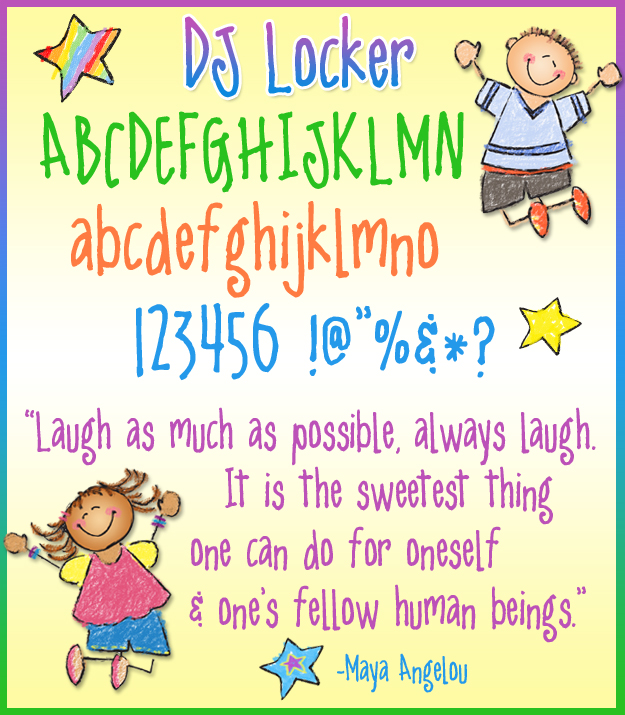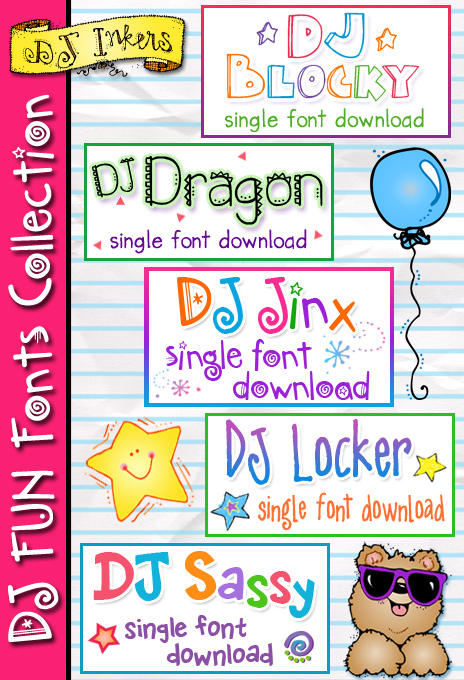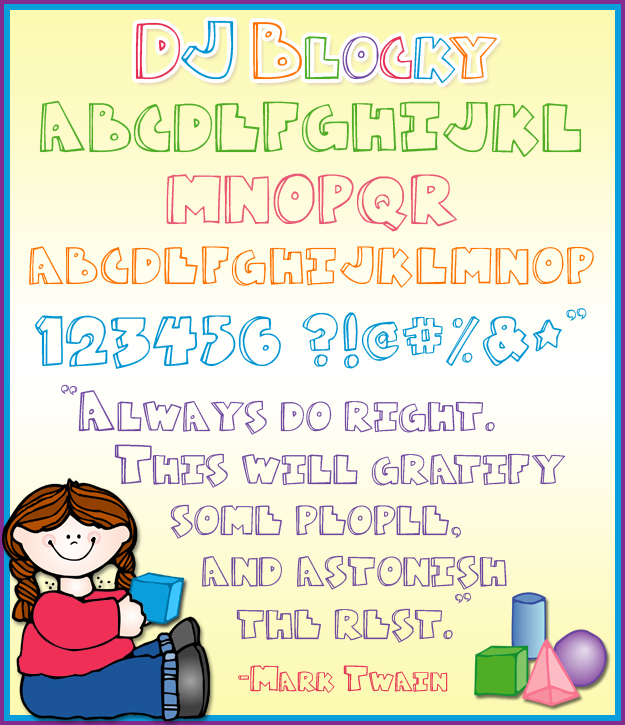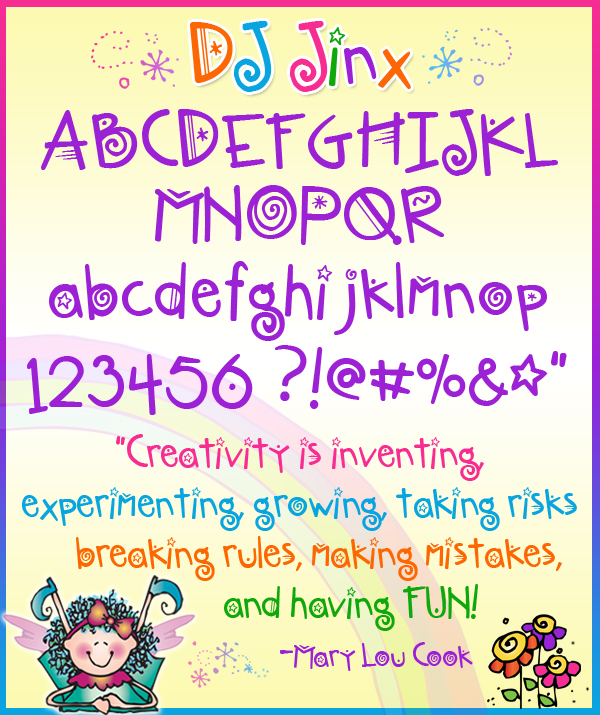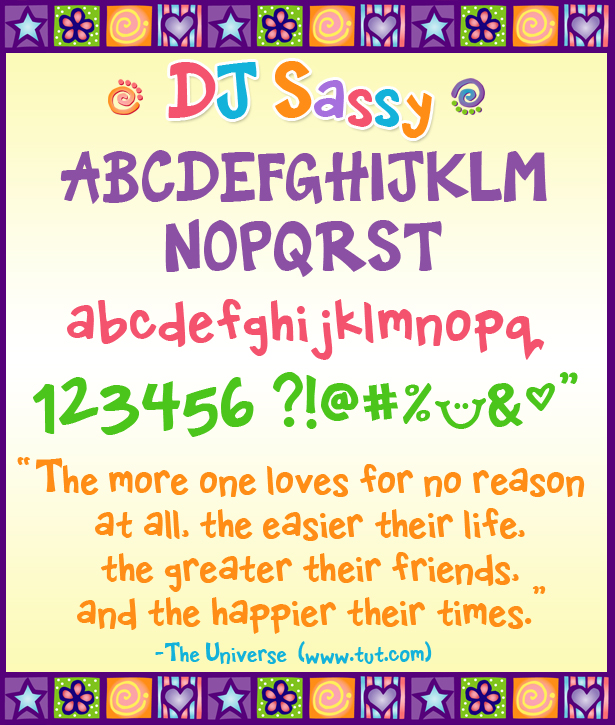
DJ Fun Fonts Collection Download
You'll have a blast typing on any of your creations with DJ Inker's Fun Fonts Collection! There's 5 whimsical fonts included that are sure to add a playful edge to any project. (Plus, you save a lot by buying 5 fun fonts together in one package!)
Collection includes: DJ Blocky, DJ Dragon, DJ Locker, DJ Jinx and DJ Sassy. Download instant smiles today! See additional images for lettering samples. Also sold separately, but this set saves you a bundle!